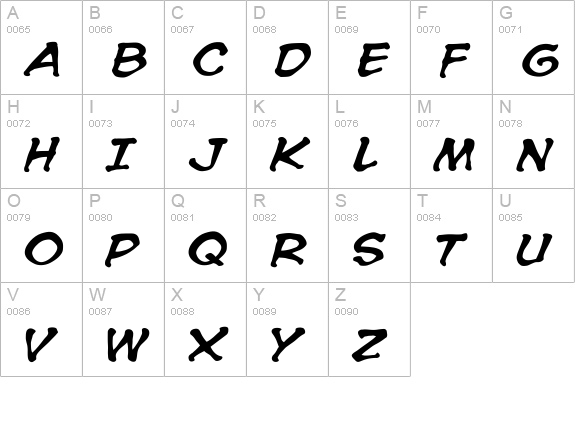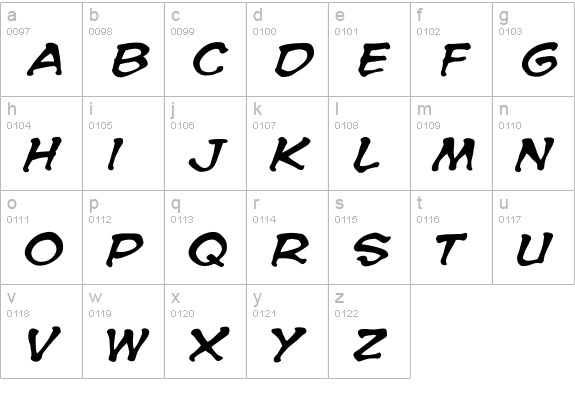
CCSpookytooth-Italic Font Details
CCSpookytooth-Italic is a distinctive, italic variant in the CCSpookytooth typeface family \xE2\x80\x94 well suited to design and typography projects.
CCSpookytooth-Italic font is a captivating and eerie typeface that exudes a sense of mystery and intrigue. Its slanted, italic design adds a spooky touch to any project, making it perfect for Halloween-themed designs, horror movie posters, and more. The unique curves and sharp angles of this font create a chilling atmosphere that is sure to capture attention. Best of all, CCSpookytooth-Italic font is completely free to download at FontsMarket.com. Whether you're a designer looking to add a touch of spookiness to your work or simply want to experiment with a new and exciting font, CCSpookytooth-Italic is the perfect choice. Download it today and unleash your creativity with this hauntingly beautiful typeface.